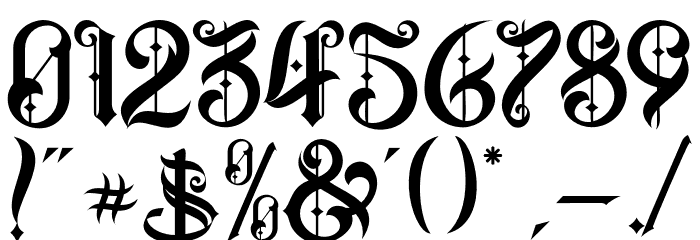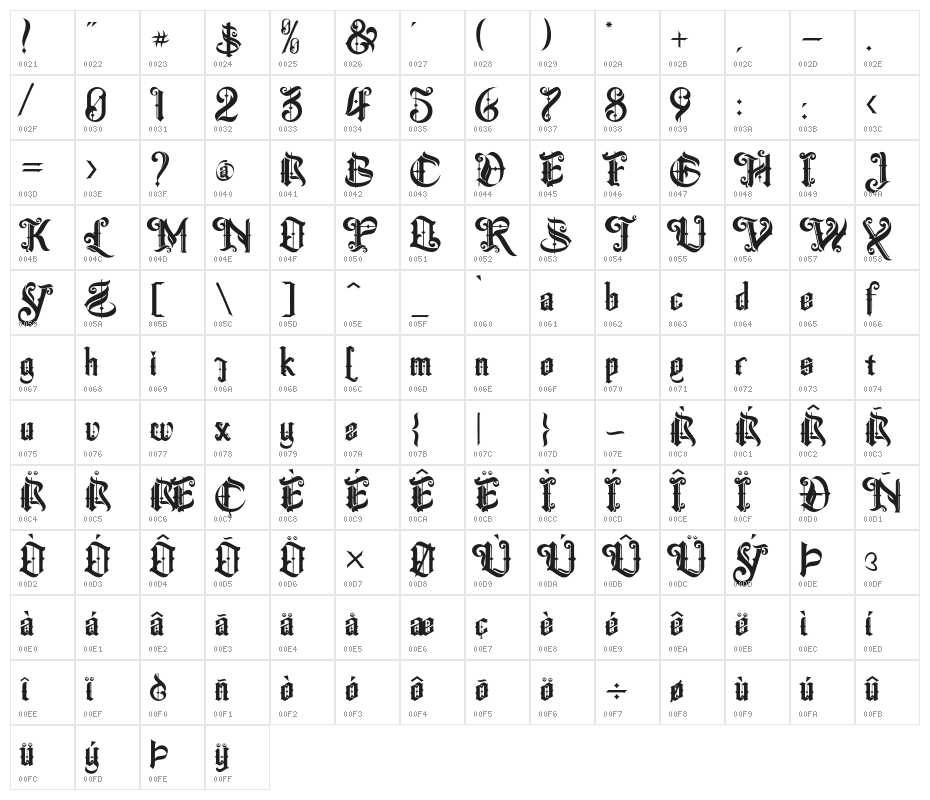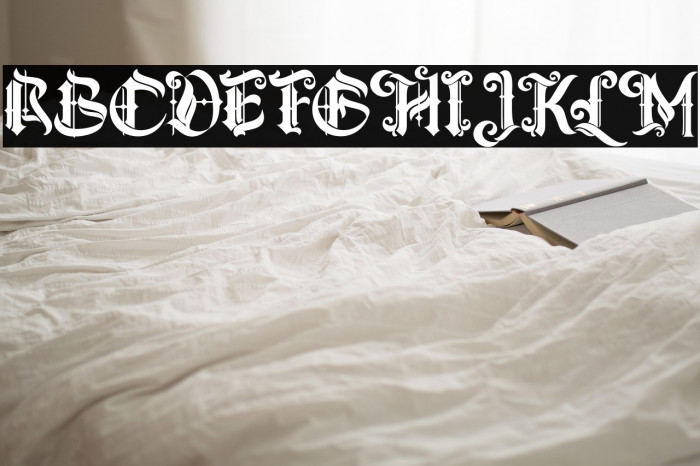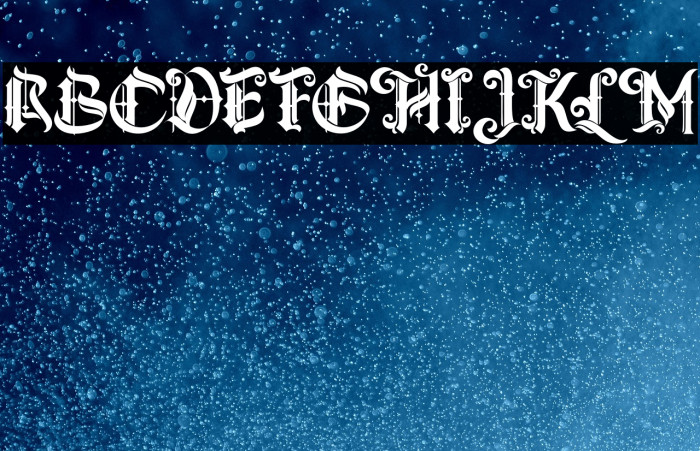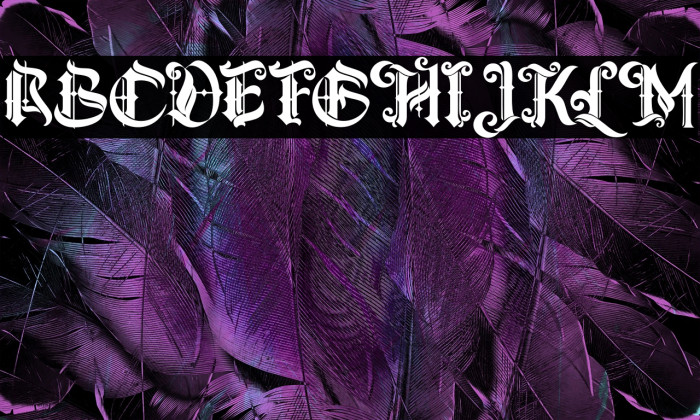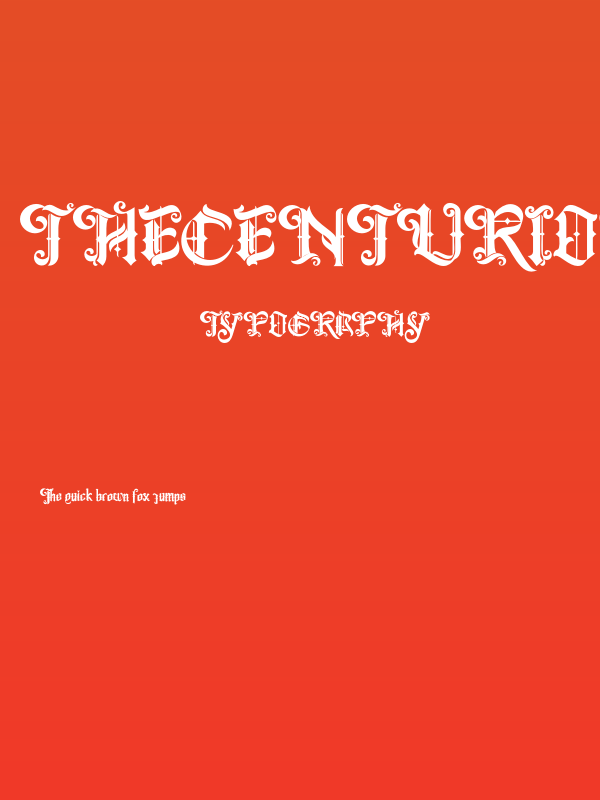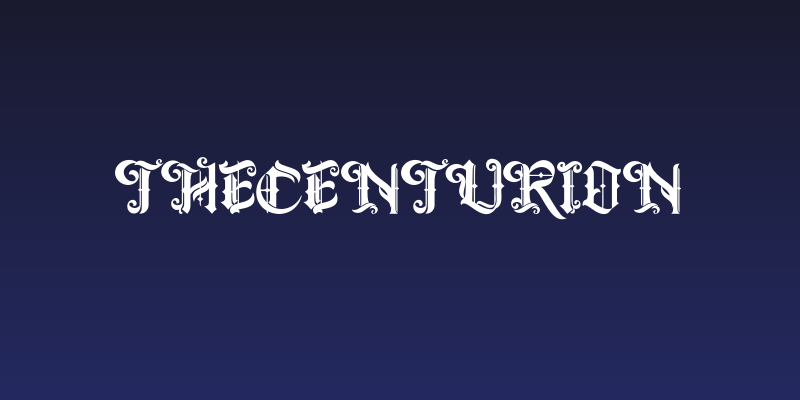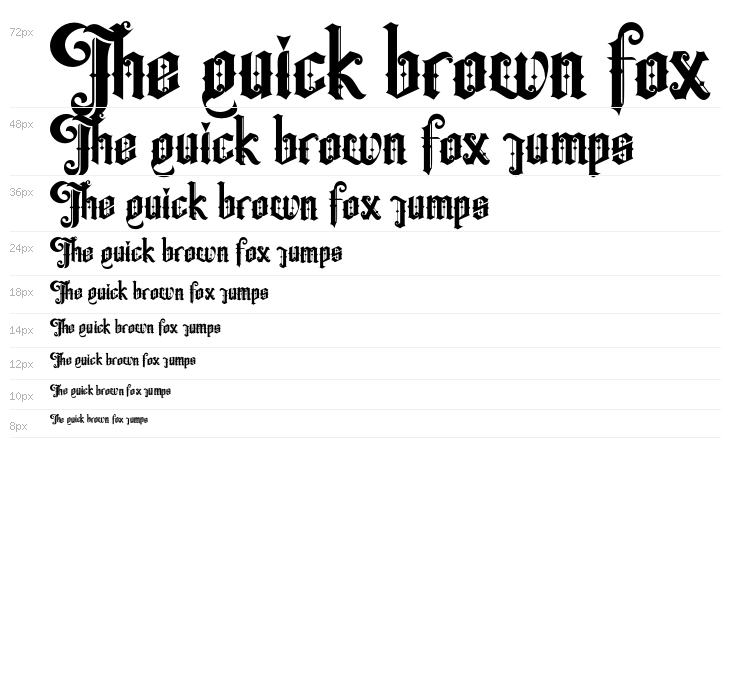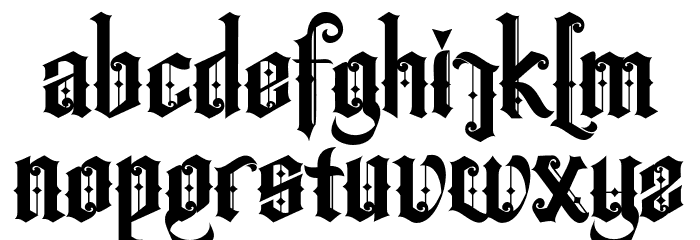
TheCenturion Font
TheCenturion Description
This font features a bold and intricate design reminiscent of medieval script. The characters are adorned with elaborate flourishes and sharp edges, giving it a dramatic and ornate appearance. The uppercase letters are particularly striking, with their elaborate curves and pointed serifs. The lowercase letters maintain the same decorative style, ensuring consistency throughout the font. Numbers and special characters are equally embellished, making this font suitable for projects that require a historical or gothic aesthetic. The overall design is highly decorative, making it ideal for use in headlines or titles where a strong visual impact is desired.
| Proposed Projects | Ideal for historical-themed designs, gothic posters, book covers, and decorative titles. |